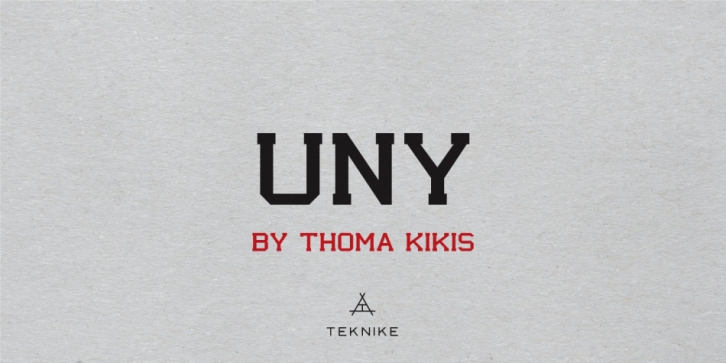
Designed by Thoma Kikis, UNY is a slab serif font family. This typeface has three styles  and was published by TEKNIKE.
UNY is a display slab serif font. UNY is a distinct all caps geometric typeface inspired by varsity, college and university sports as well as the military. The UNY name was derived as a new styled acronym from the word university. UNY is great for sports, sports teams, schools, fantasy, display work, invitations, writing, quotes, posters, logos and headings.
UNY is designed by Thoma Kikis and is currently available with Latin, Cyrillic, Hebrew and Greek character sets in 3 styles including Regular, Backslant and Italic.